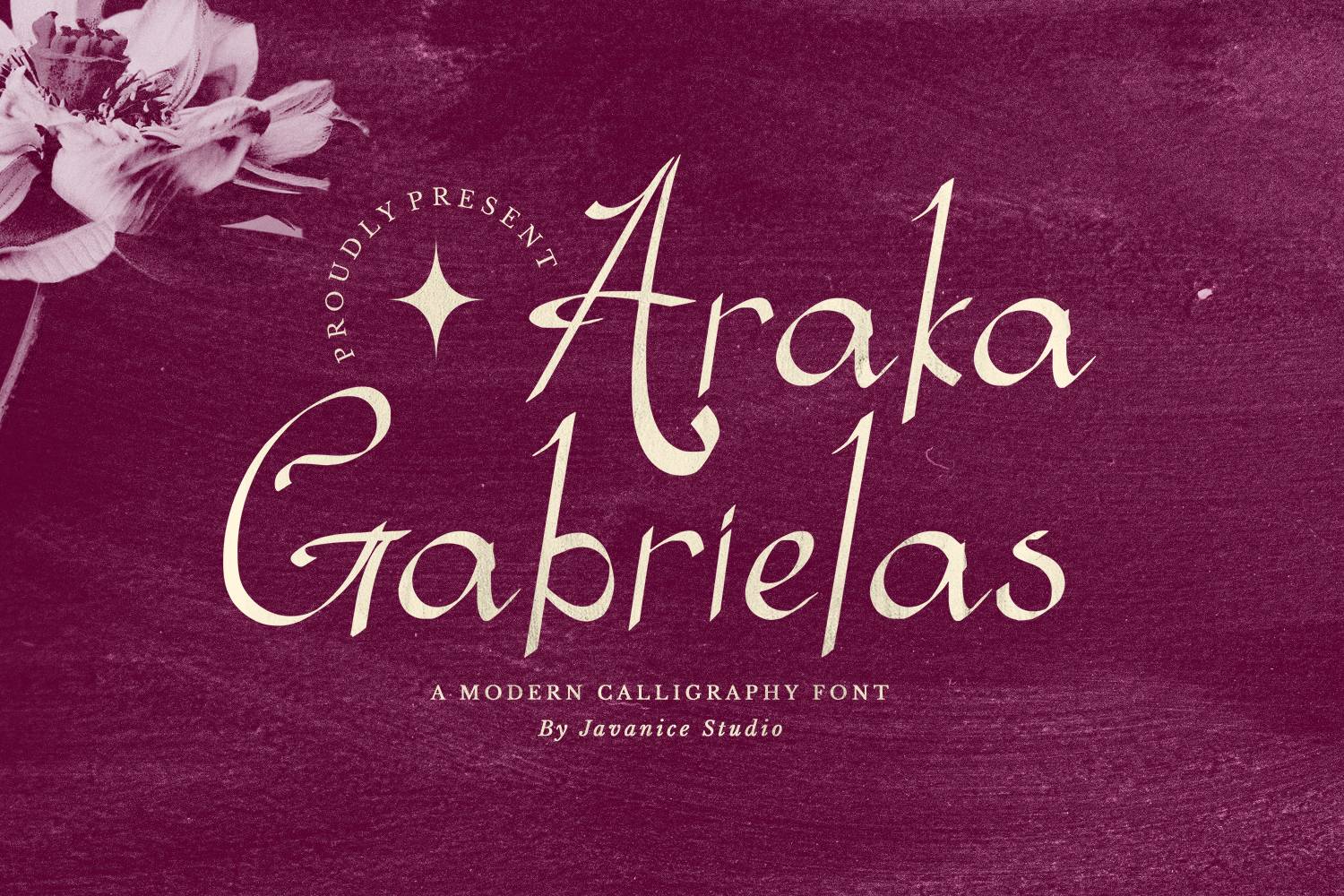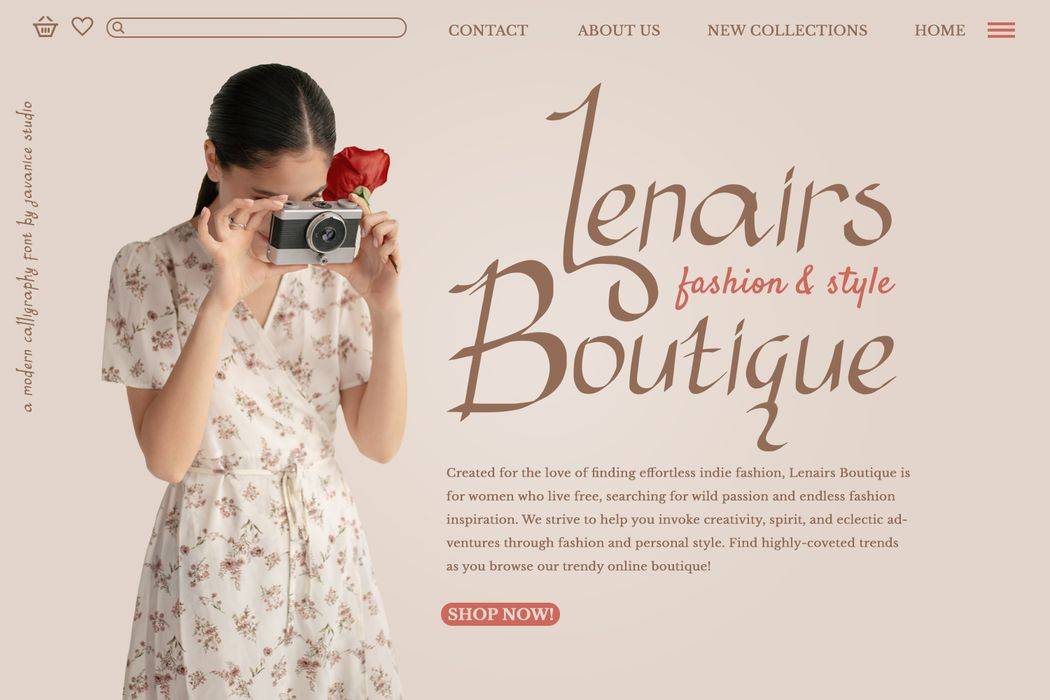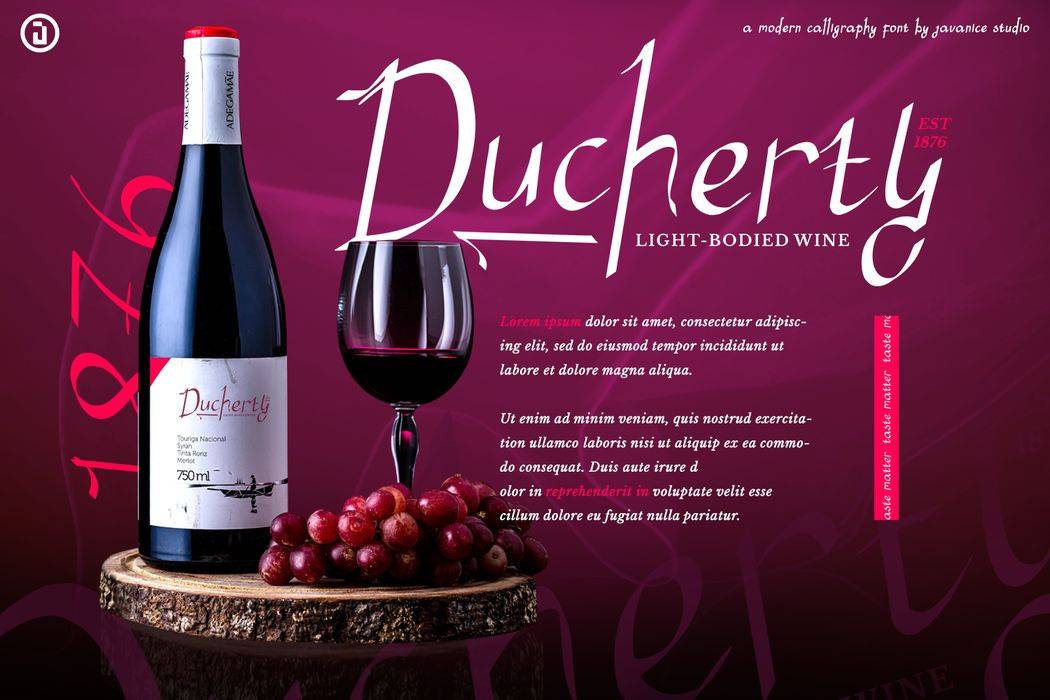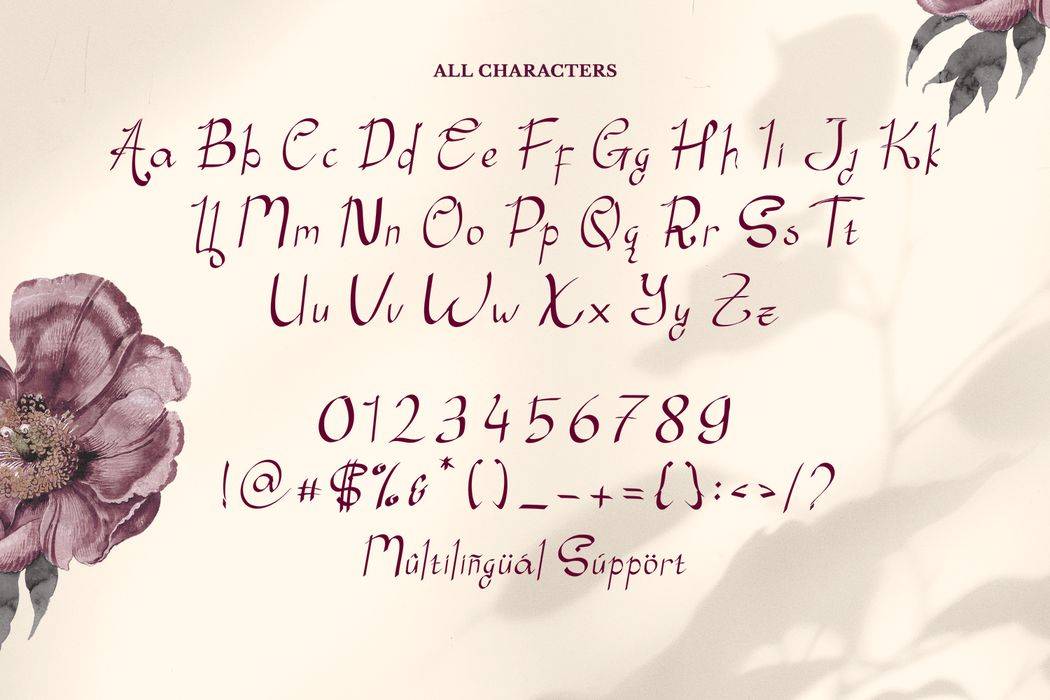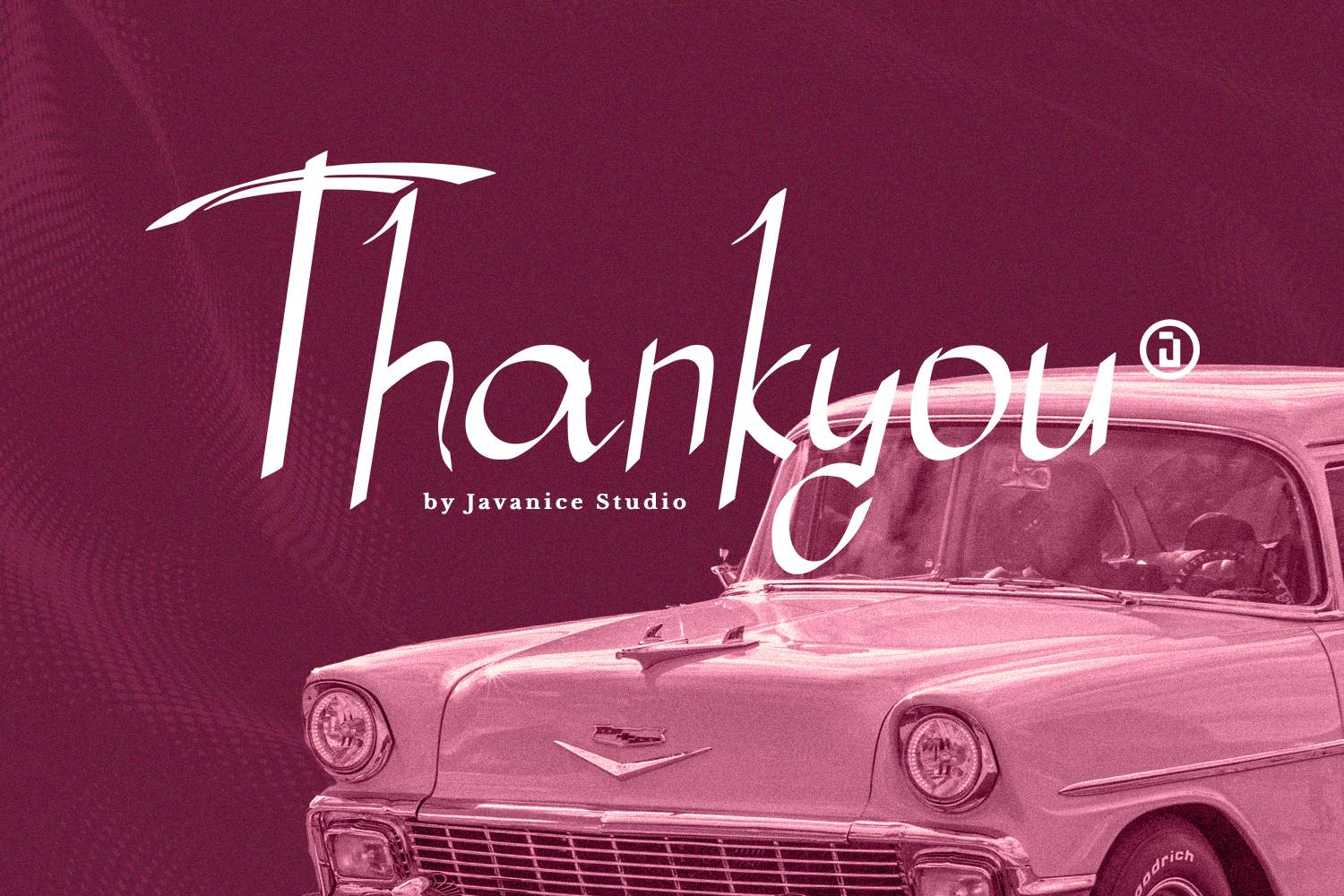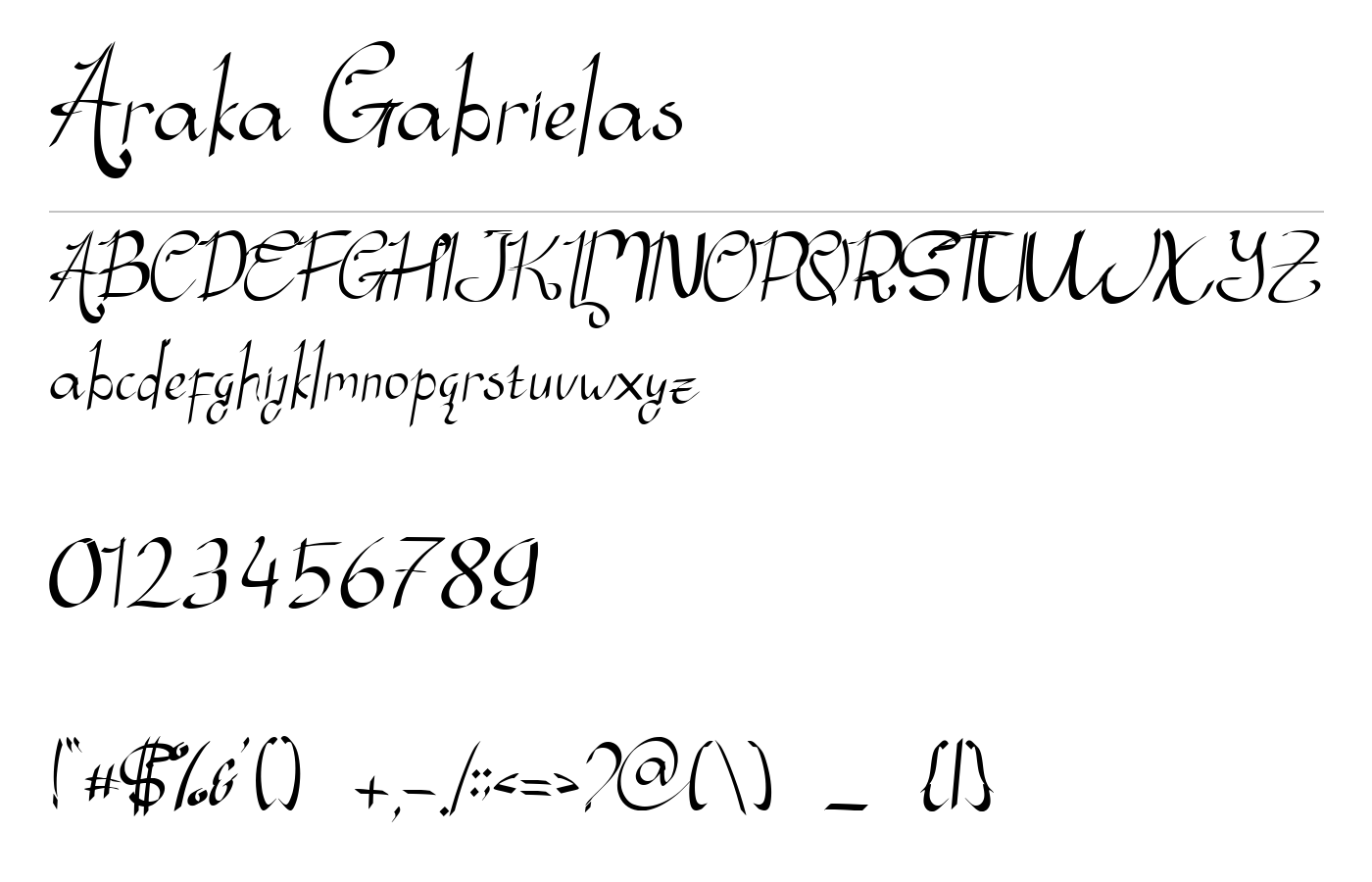
Araka Gabrielas is an elegant, slender script font with a calligraphic feel, characterized by its fine strokes and distinctive, whimsical letterforms. Its tall x-height and delicate curves give it a graceful yet slightly playful personality, making it ideal for stylish invitations, branding, or any design seeking an artistic, refined touch. This font works best in headlines or decorative text where its unique charm can truly stand out.
Araka Gabrielas Font
About Araka Gabrielas Font